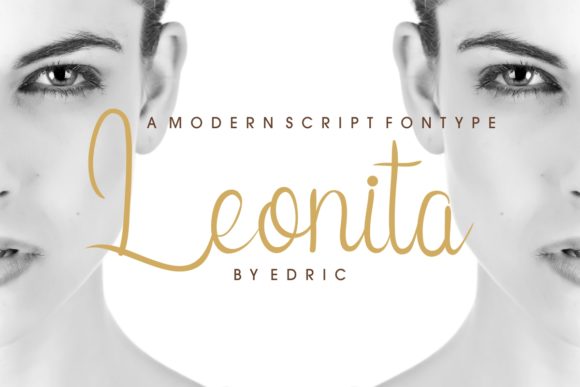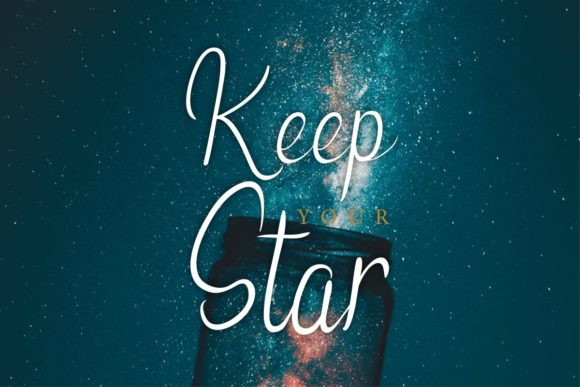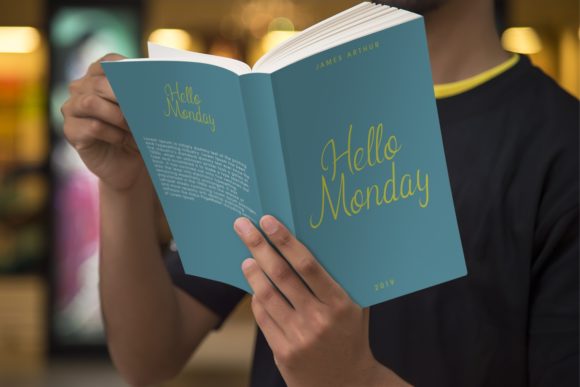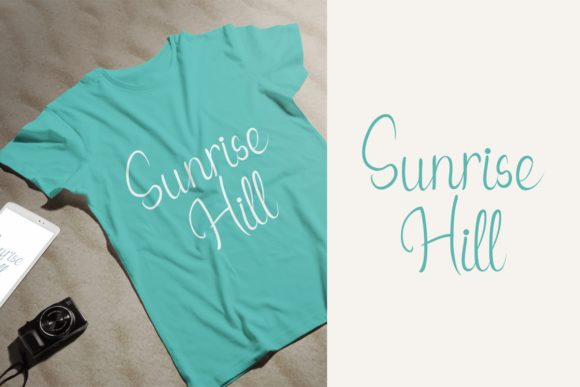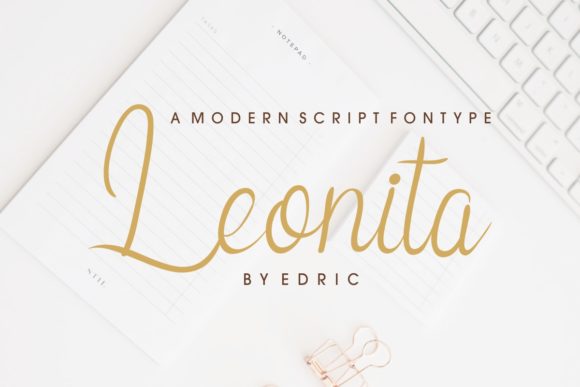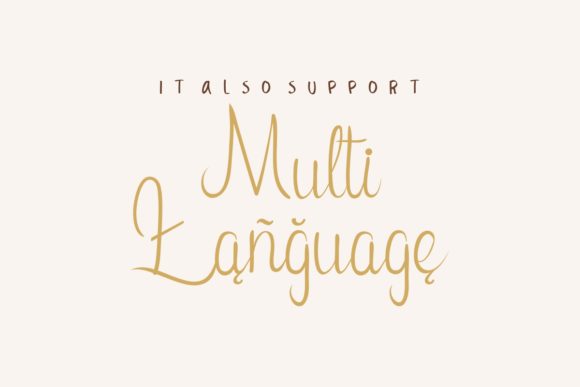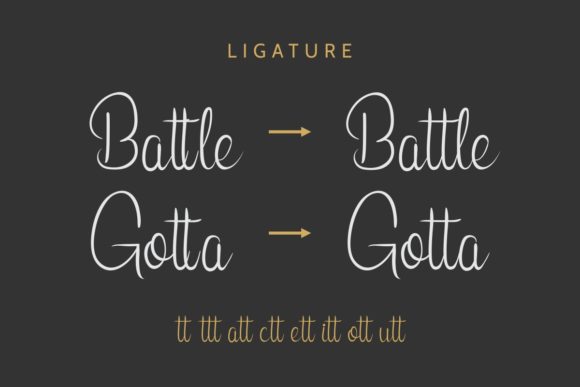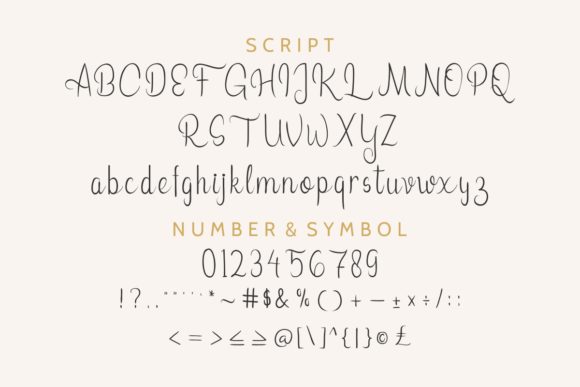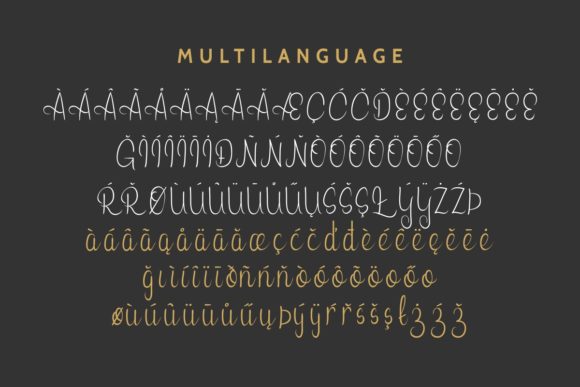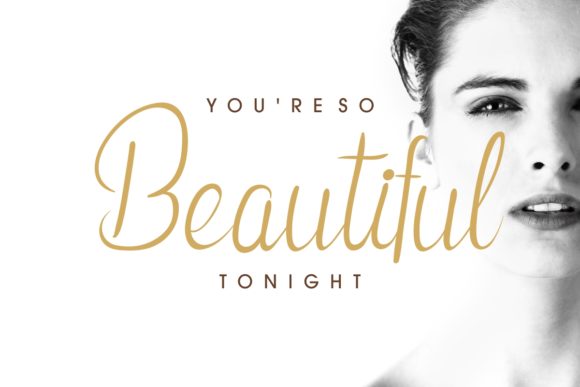
HomeScript FontsLeonita Font Script Fonts Leonita Font FacebookXPinterestWhatsApp Leonita Font Poster 2 Leonita Font Poster 3 Leonita Font Poster 4 Leonita Font Poster 5 Leonita Font Poster 6 Leonita Font Poster 7 Leonita Font Poster 8 Leonita Font Poster 9 Leonita Font Poster 10 Leonita Font Poster 11 Leonita Font Poster 12 About Leonita Font Leonita is a sweet and simple script that delivers a unique approach to contemporary elegance. DOWNLOAD ON CREATIVE FABRICAThis font is sold and delivered by Creative Fabrica. Font Canyon may earn a commission if you buy through this link. People also explored January Shine Font Pencil Sketch Font Rosa Font Handwritten Font Sweetly Font Flay by Butterfly Font Sintrua Font Mailstone Font Davetica Font 320 0 TagsLeonita Font Previous articleAurelly FontNext articleSabrina Font LEAVE A REPLY Cancel reply Comment: Please enter your comment! Name:* Please enter your name here Email:* You have entered an incorrect email address! Please enter your email address here Website: Save my name, email, and website in this browser for the next time I comment. Personal Use Free Bethania Personal Use Free Read more about this font BD Medled Personal Use Free Read more about this font Casual Personal Use Free Read more about this font Bosque Font Personal Use Free Read more about this font BLOG Free Fonts Risk: Why Free Fonts Can Be Dangerous for Designers Free Fonts Risk: Why Free Fonts Can Be Dangerous for Designers Using free fonts is a common practice in web and graphic design. However, the... Top 10 Handwritten Fonts That Elevate Your Designs To increase your work productivity, choose the most readable fonts. The 10 Best Handwriting Fonts to Add Personality to Your Designs